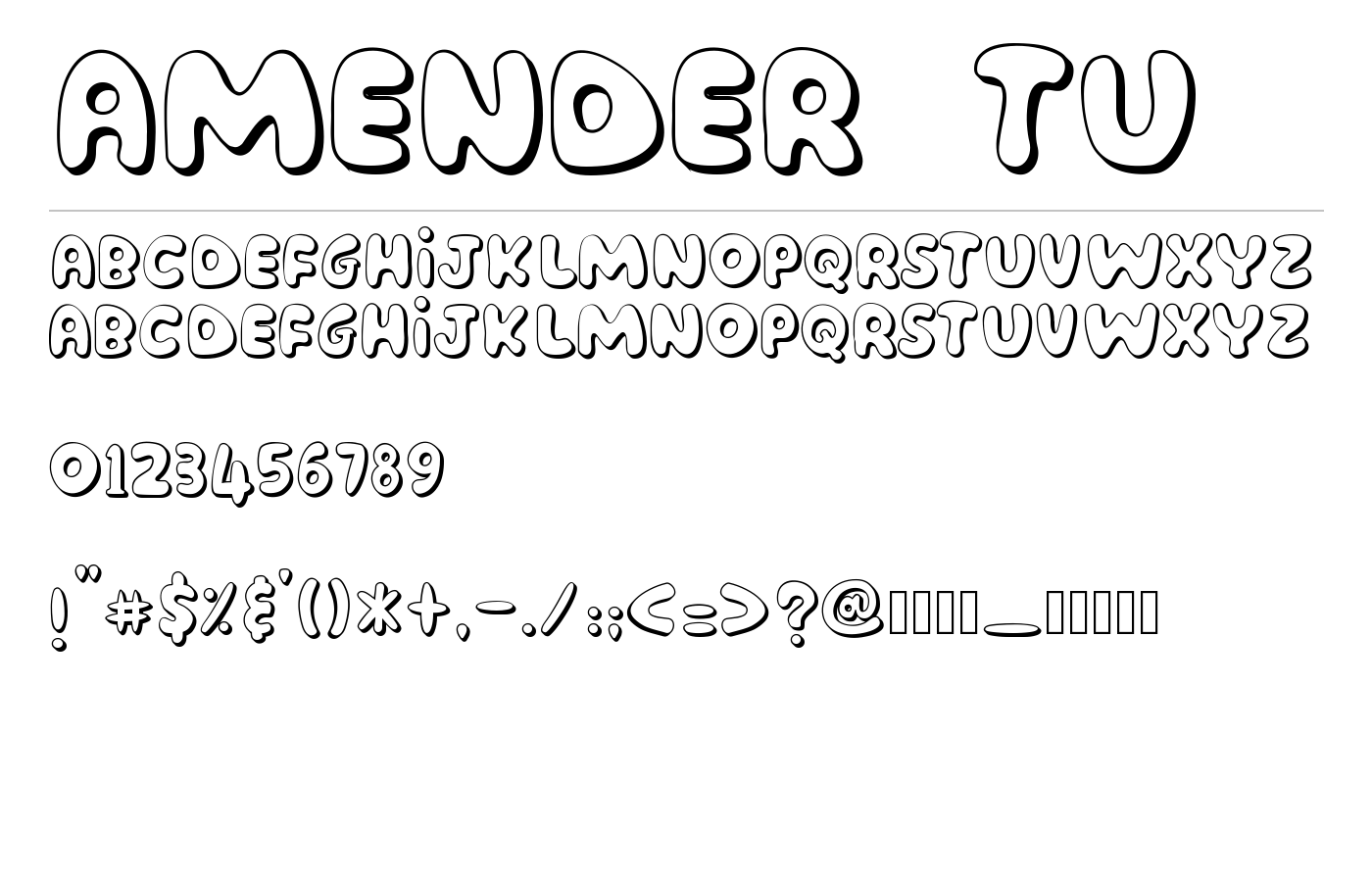
Amender Tu Font is a playful, rounded sans serif with a bold, bubbly style that adds a fun and casual vibe to any design. Its thick, curvy letters with soft edges and generous spacing make it perfect for children's materials, informal branding, or eye-catching headlines. This font shines in projects that need a lighthearted, friendly personality to engage and delight viewers.
Amender Tu Font
About Amender Tu Font